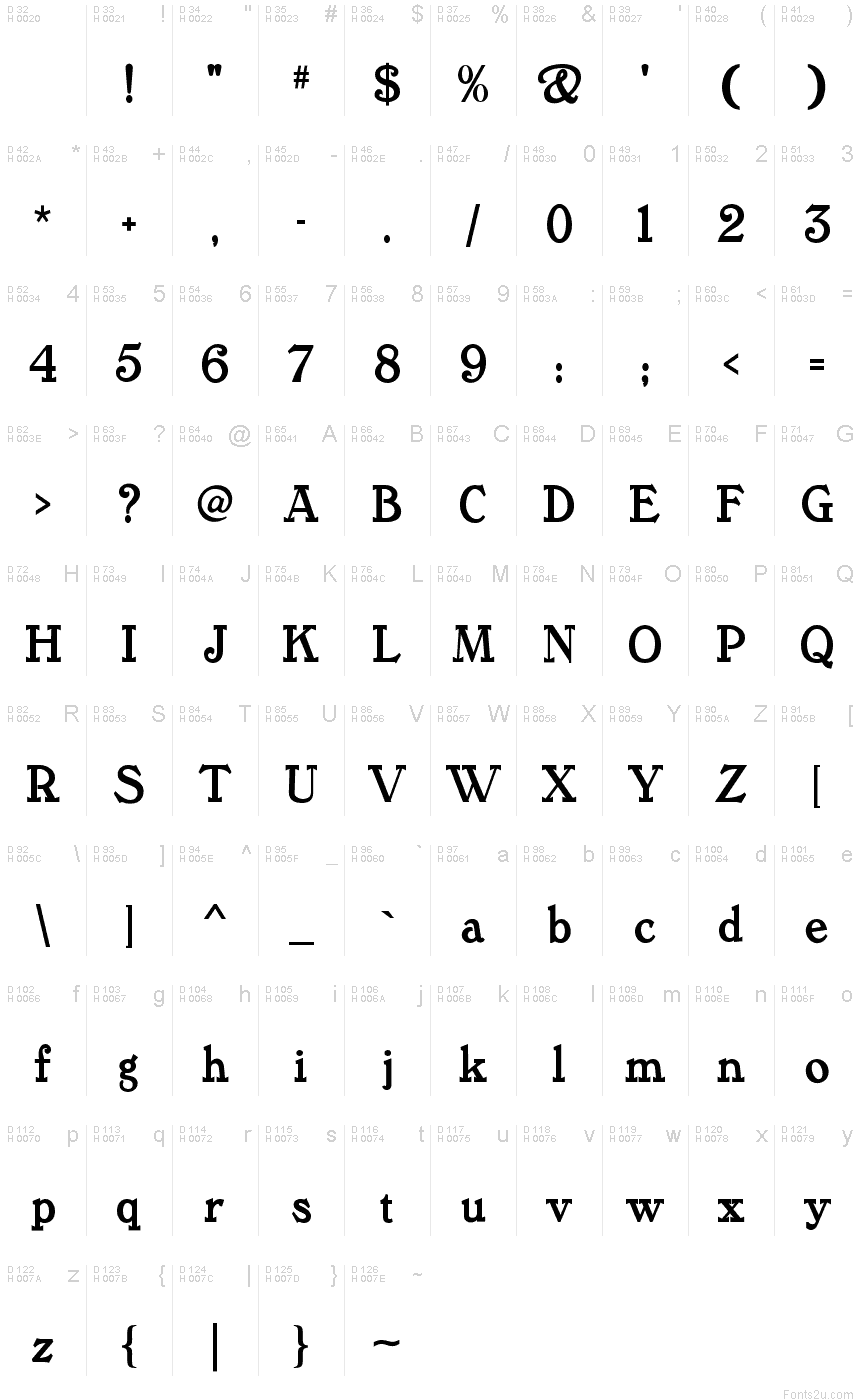
Tanglewood Tales NF by Nick Curtis is a free storybook serif font with tall, theatrical shapes. Its sharp, flared serifs and strong shifts between thick and thin strokes recall decorative book type. Several letters have curled or pointed details.
Independent bookshops and heritage publishers could use it for covers, catalogs, and literary promotions. The same old-fashioned drama also suits theater posters and confectionery packaging. It is especially convincing for folklore, fairy-tale, and period storytelling.
Tanglewood Tales NF